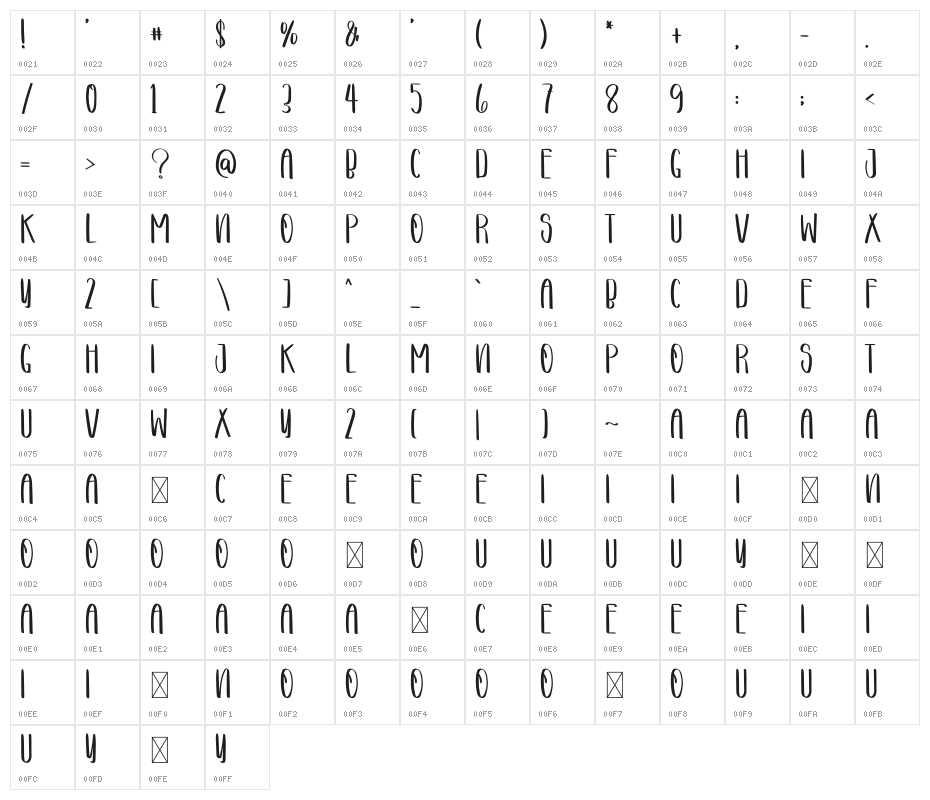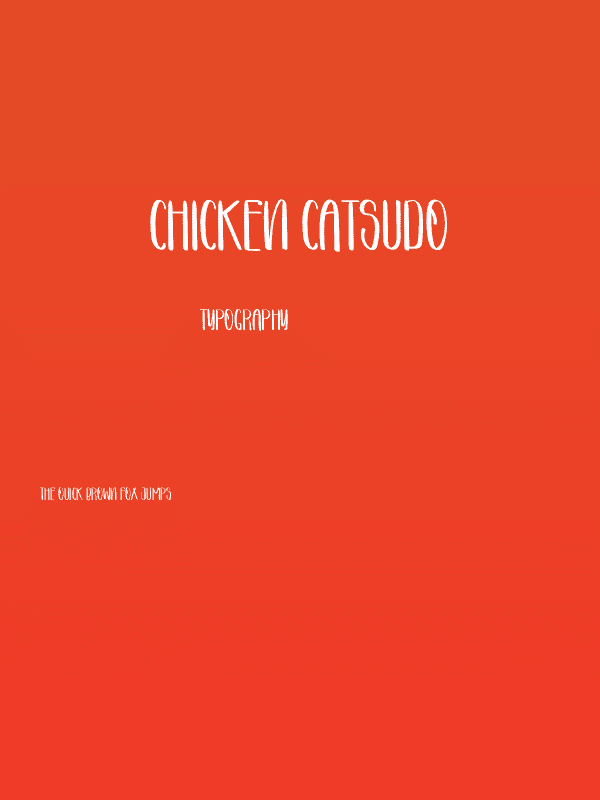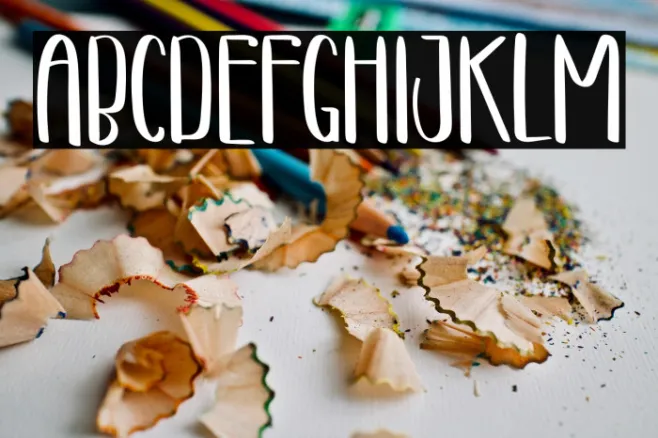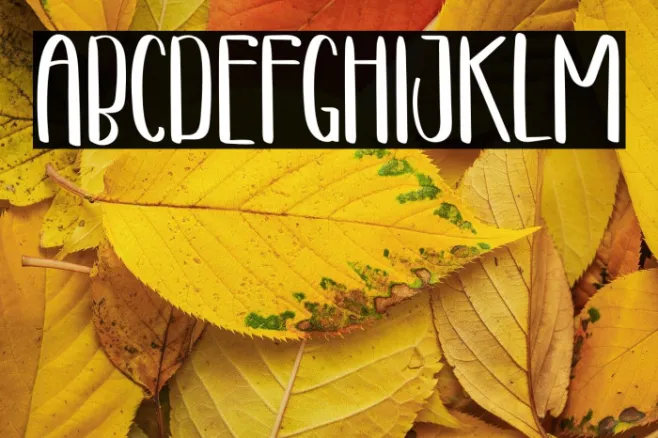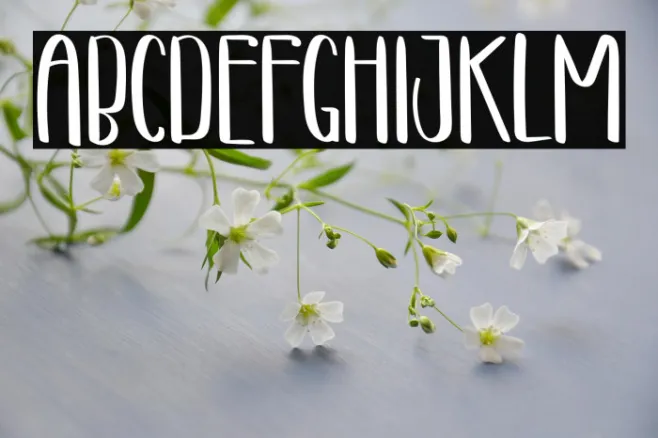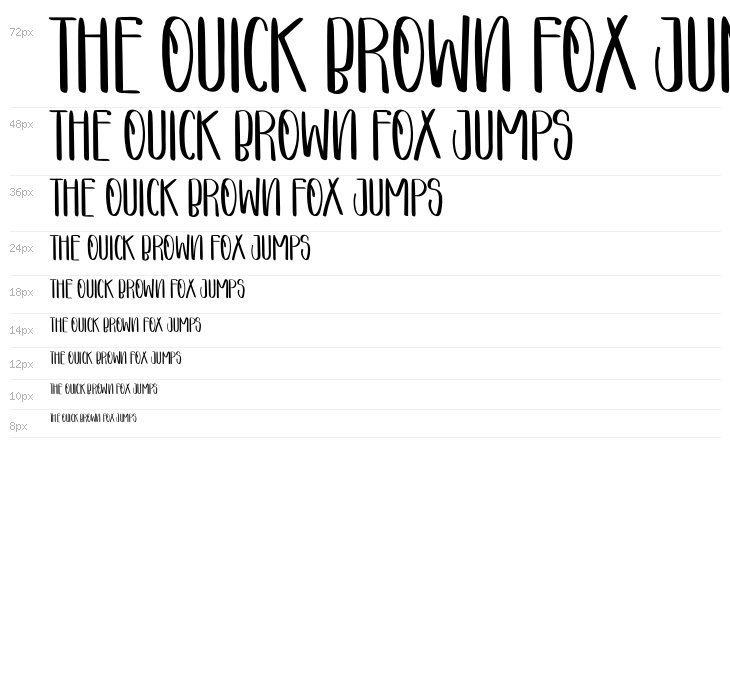
Chicken Catsudo Font
Chicken Catsudo Description
This font features a playful and whimsical style with tall, narrow letters that have a hand-drawn appearance. The strokes are smooth and consistent, giving it a casual yet polished look. The uppercase and lowercase letters maintain a uniform height, contributing to its cohesive design. The numbers and special characters are crafted with the same playful flair, making them stand out while remaining legible. This font's unique character is ideal for projects that require a touch of creativity and fun.
| Proposed Projects | Perfect for greeting cards, children's books, playful branding, and creative posters. |